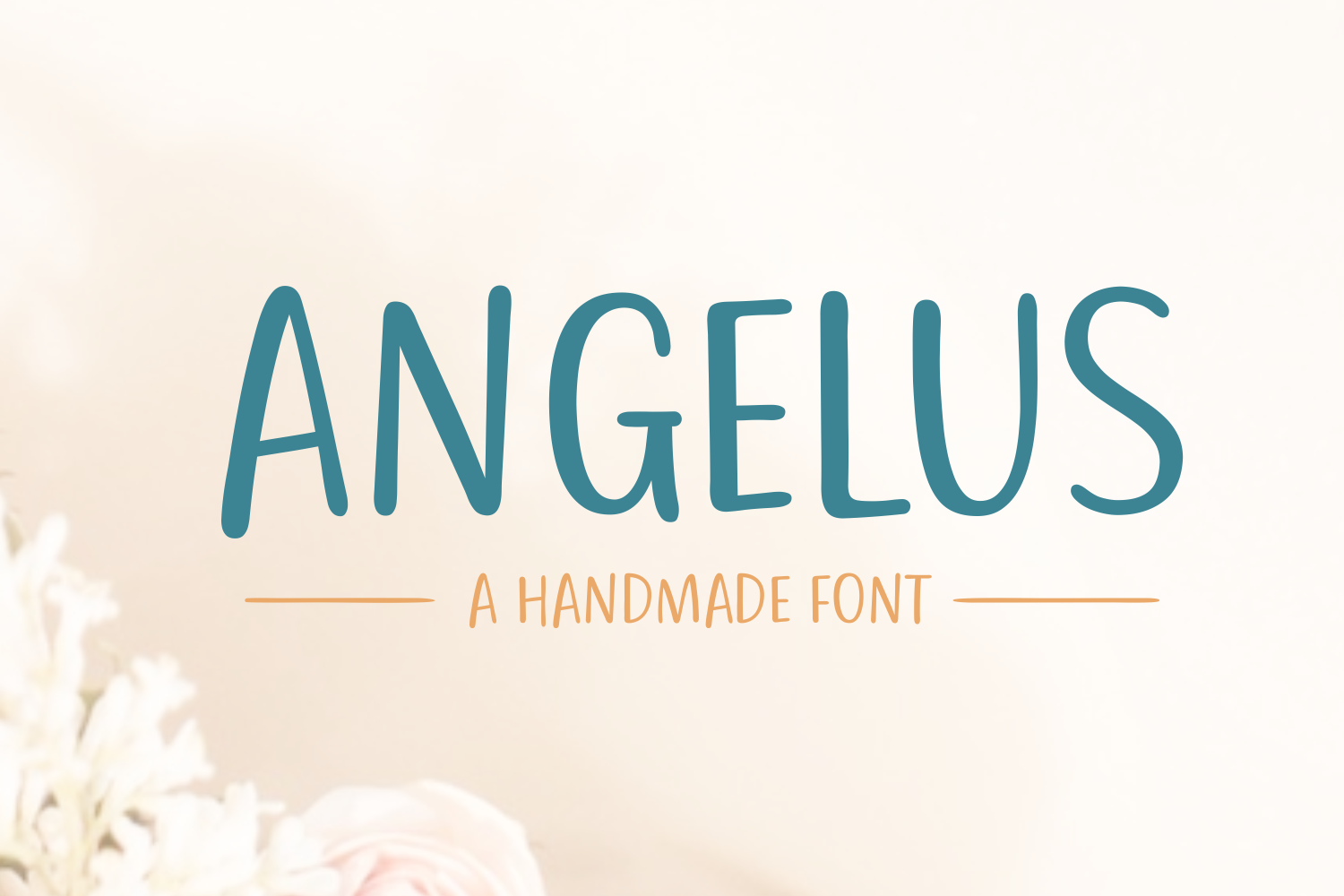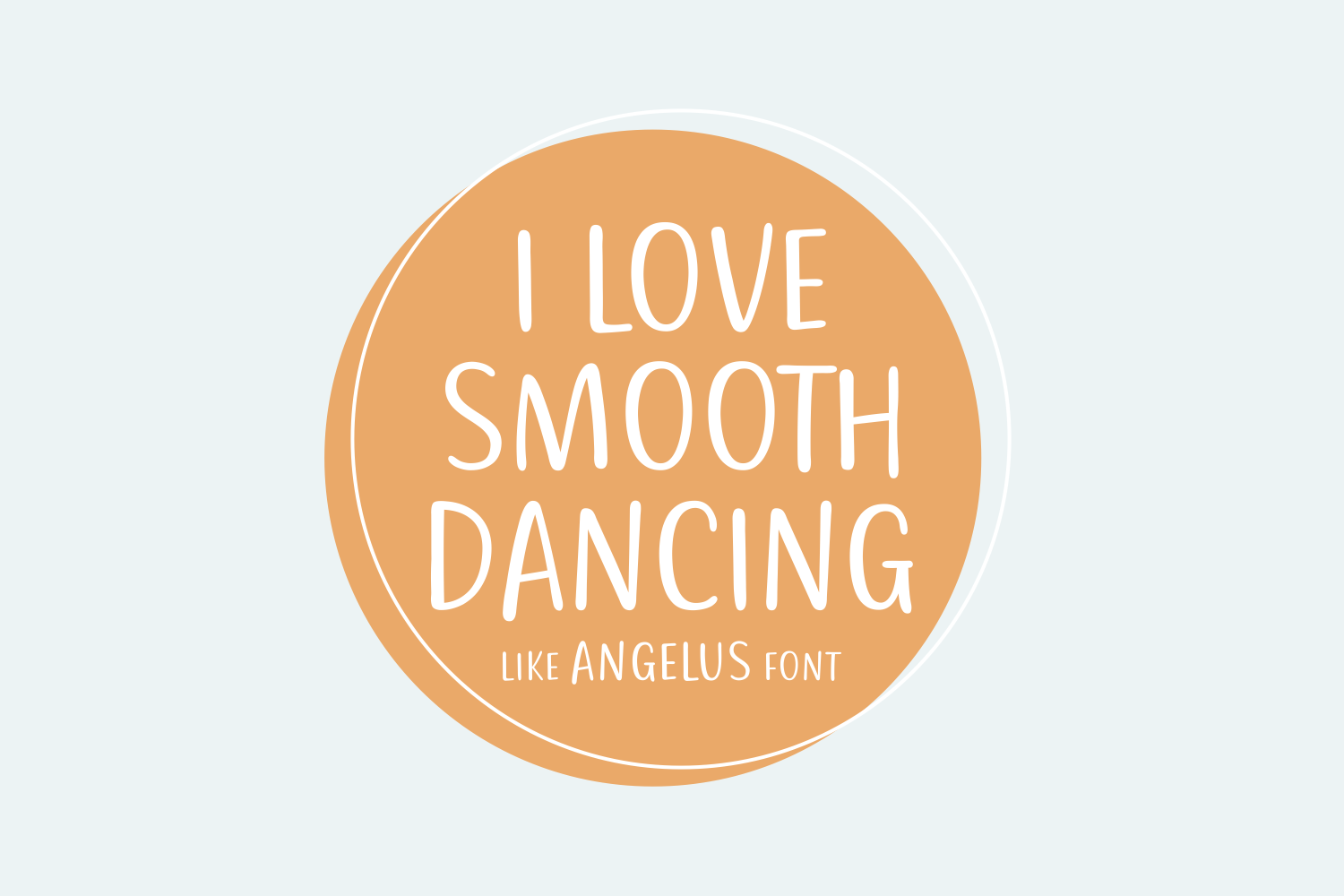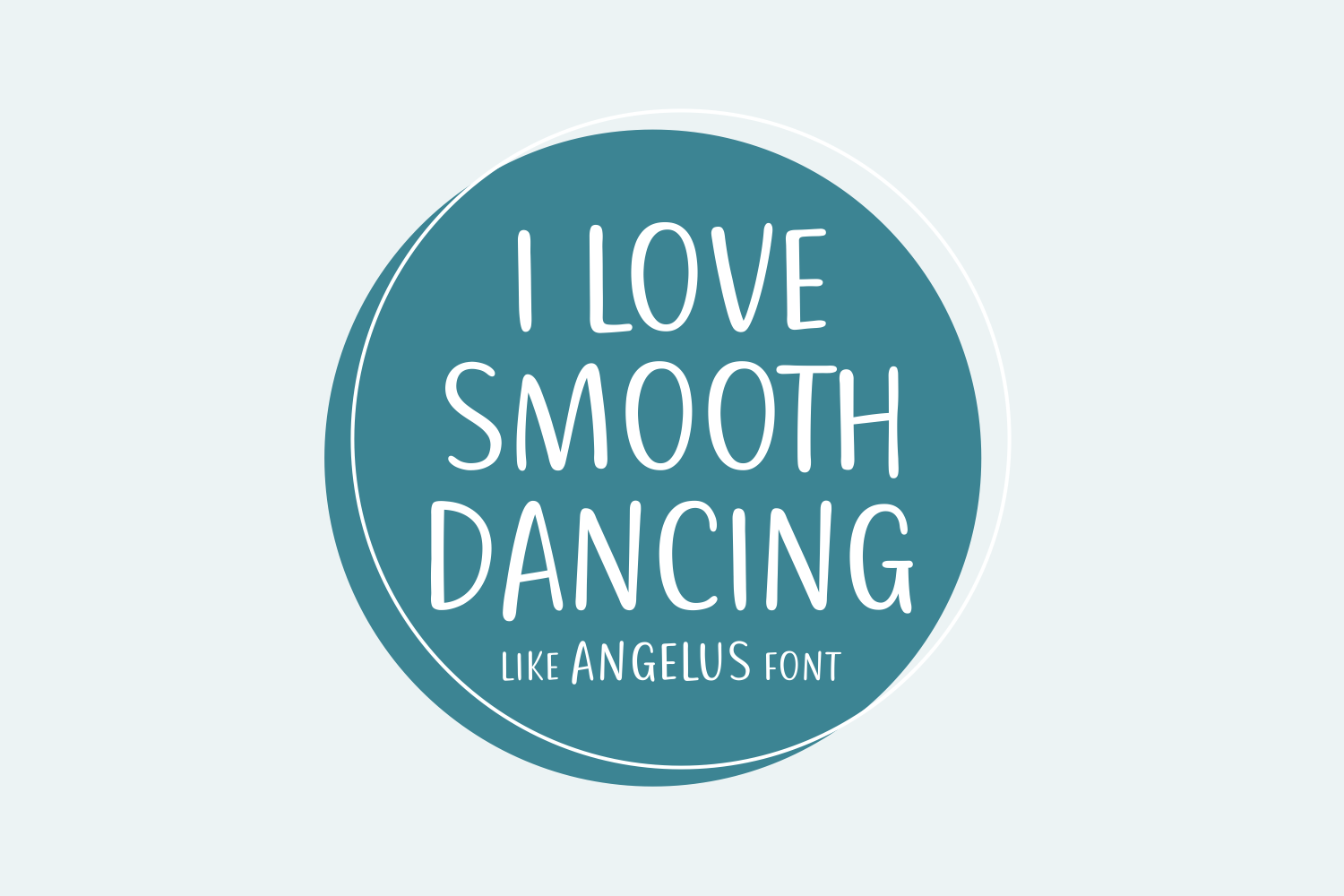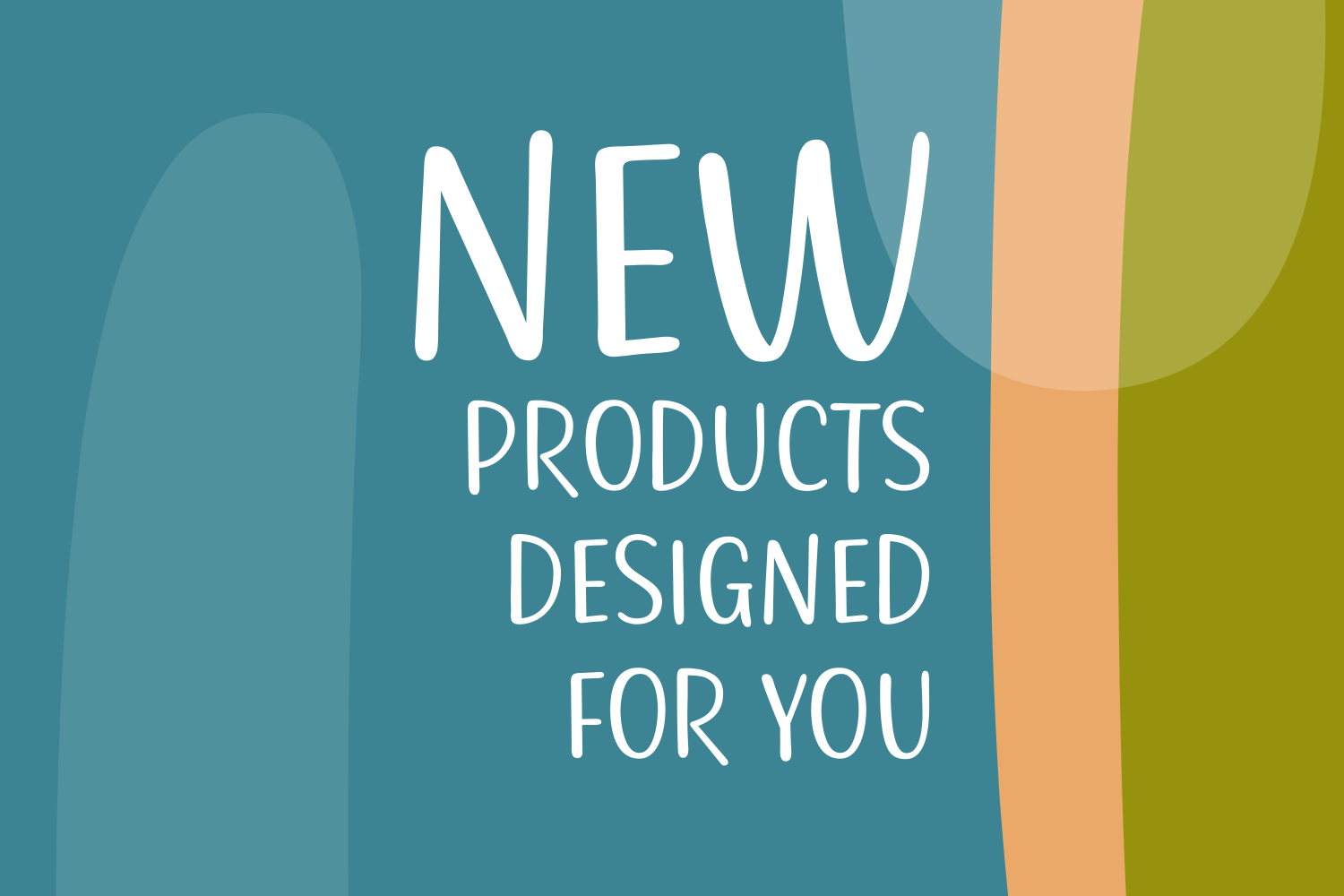
Angelus Font
About Angelus Font
Angelus is a fine hand painted font.
Created originally on paper with a brush, the Angelus font has been scanned and digitally optimized. The result is a playful font with an extremely smooth exterior, which makes it fun to work with.